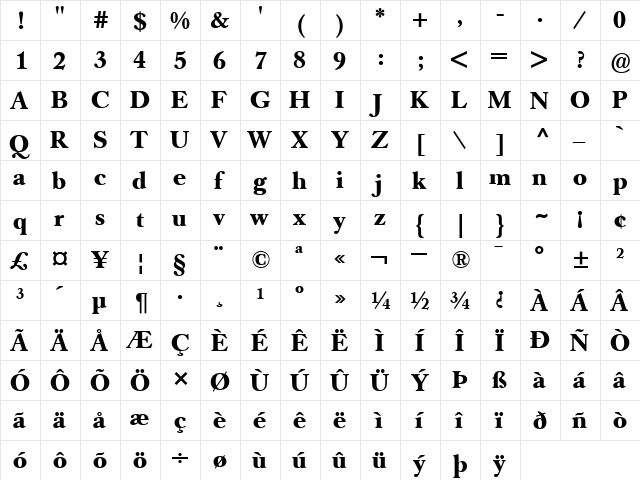
CaslonBEBold-Book Book Font Preview
CaslonBEBold-Book Book
Design Context for CaslonBEBold-Book Typeface
CaslonBEBold-Book offers clean, dependable letterforms without strong stylistic allegiance, making it a practical choice for designers who need flexibility. The heavy weight commands attention and anchors typographic hierarchies.